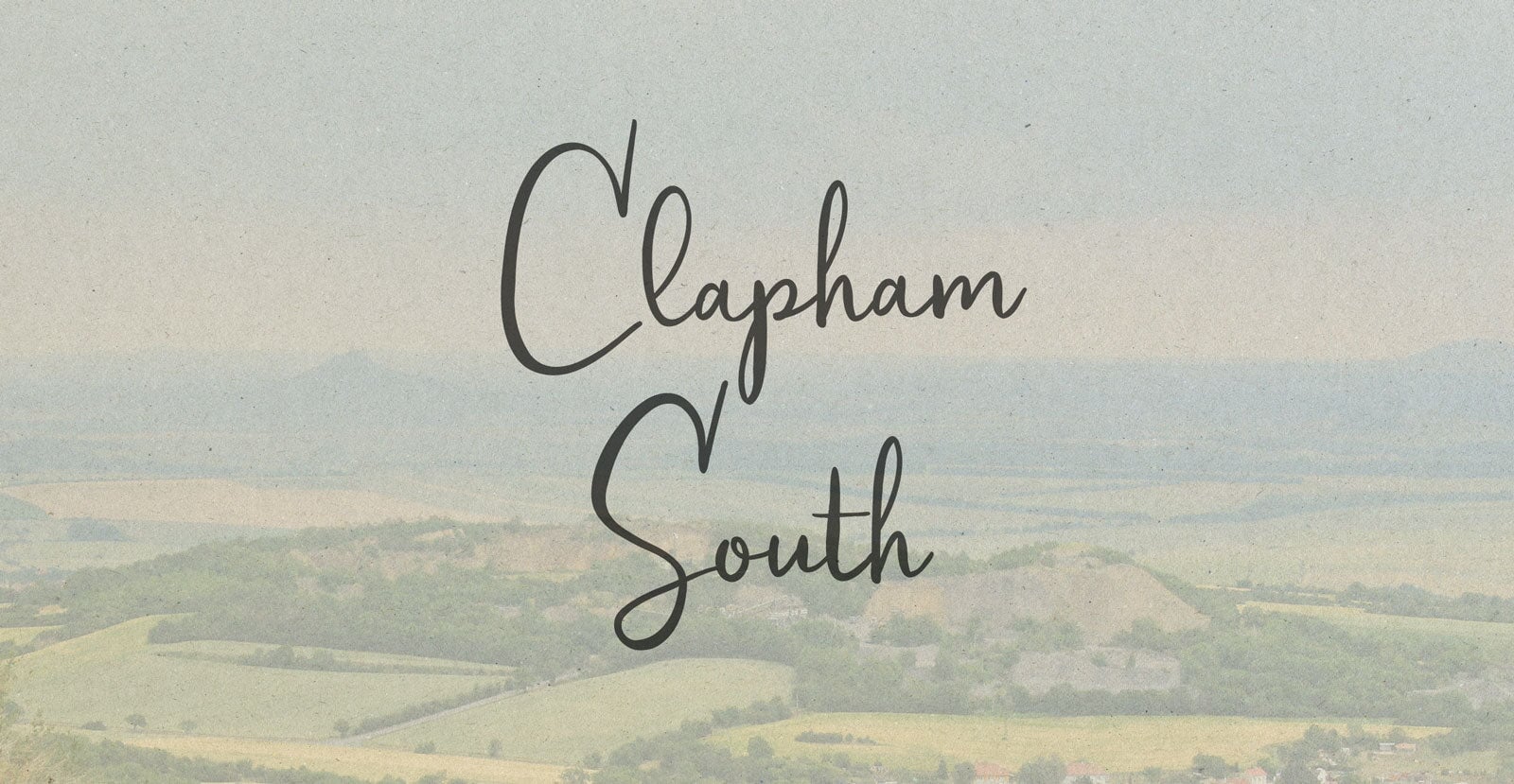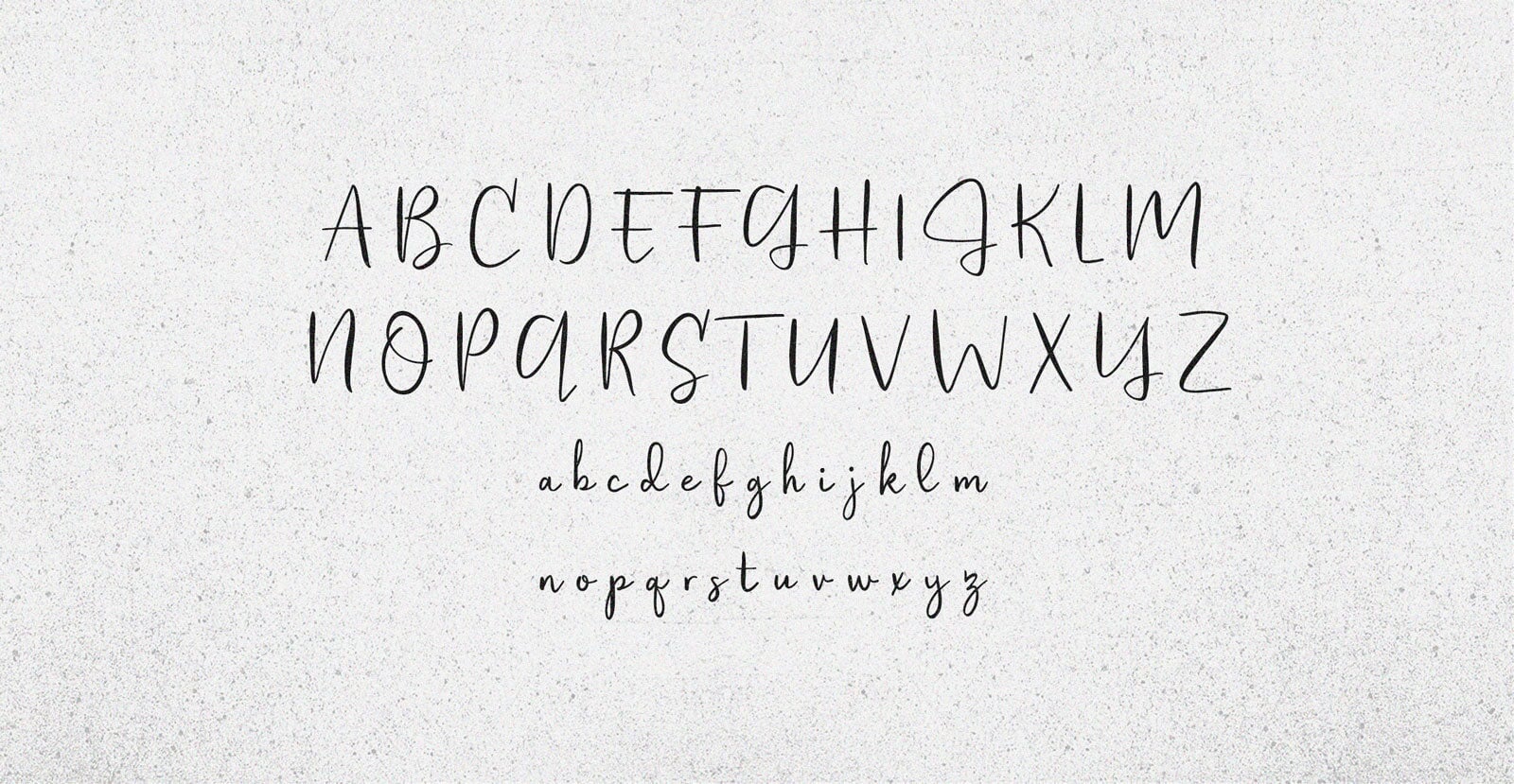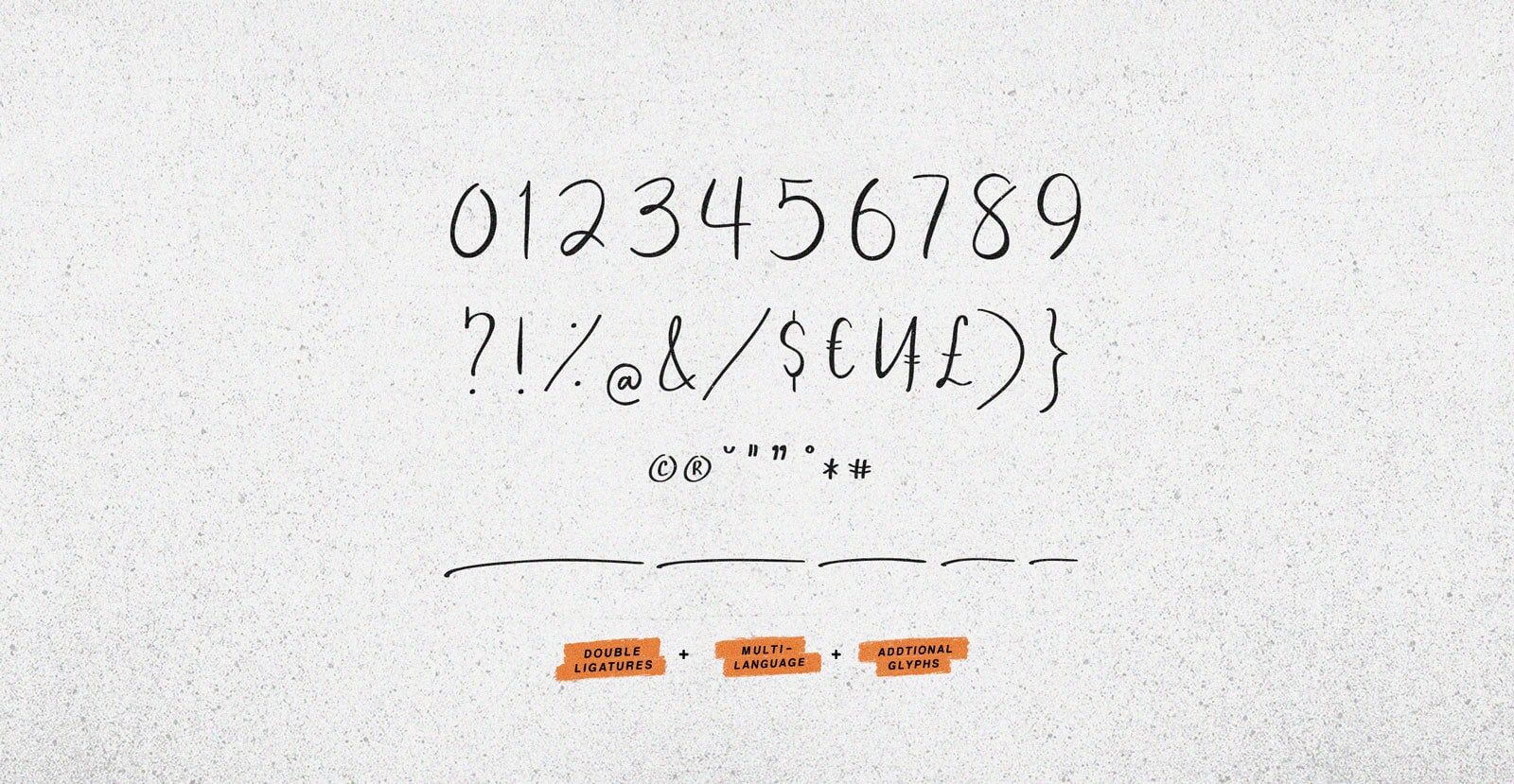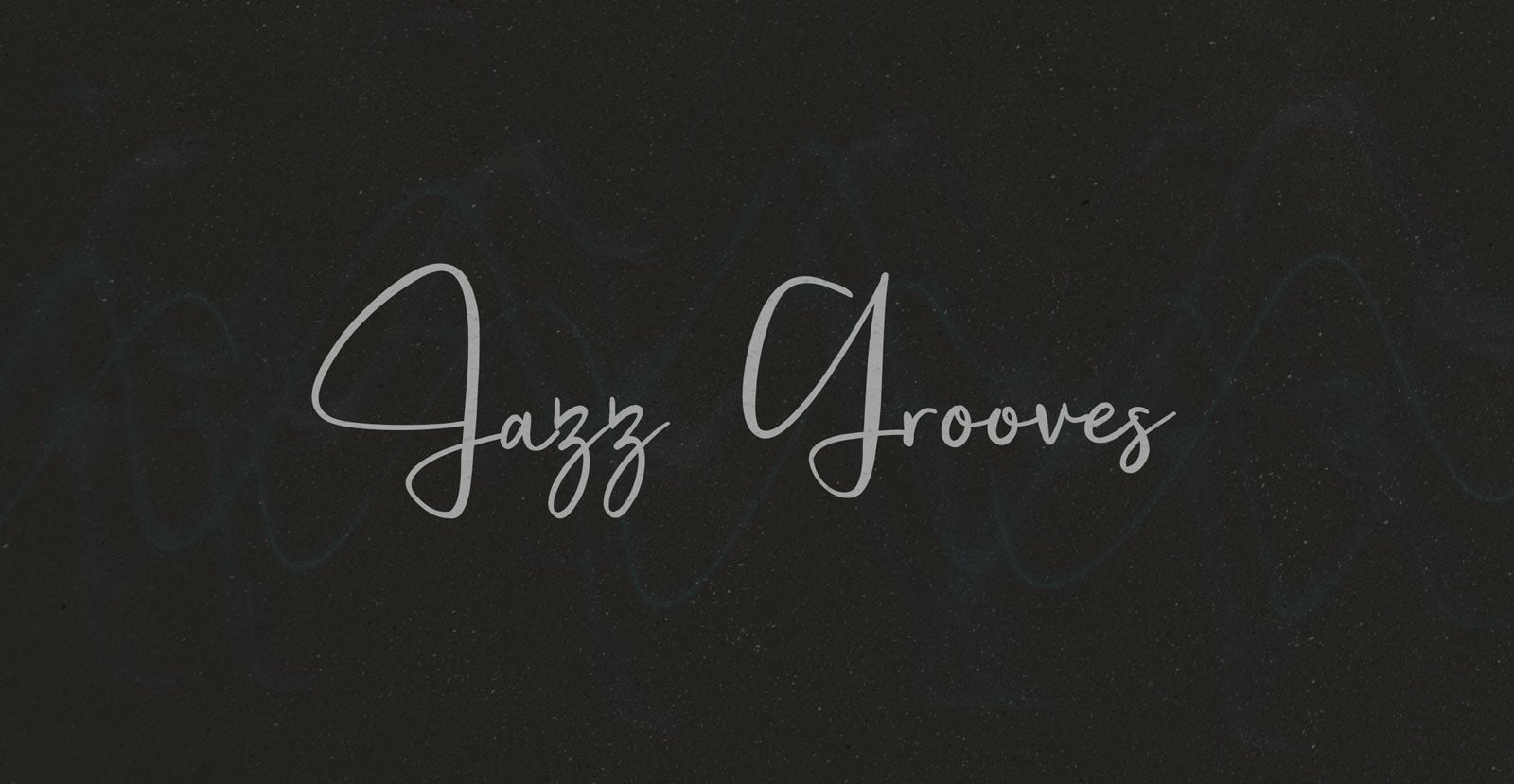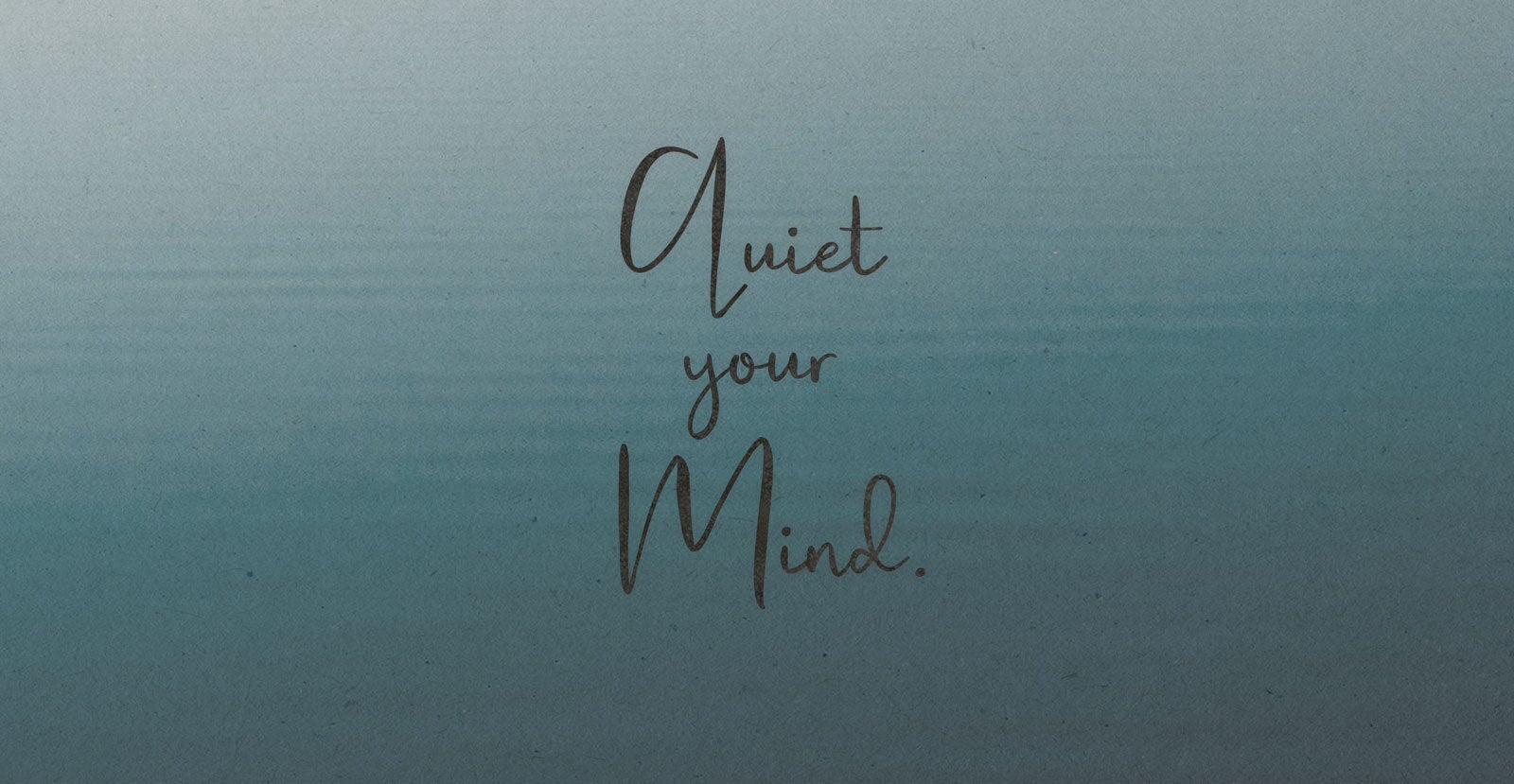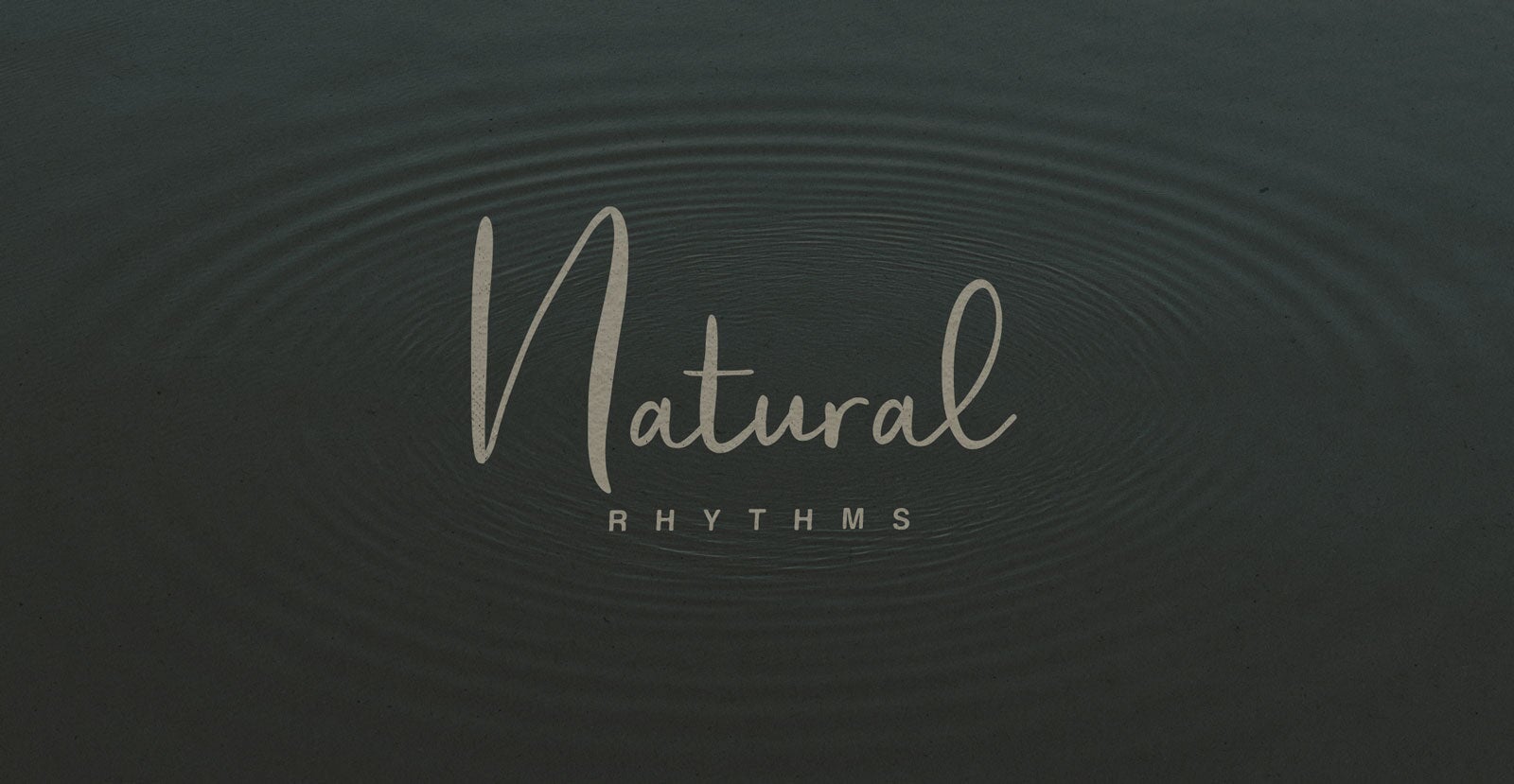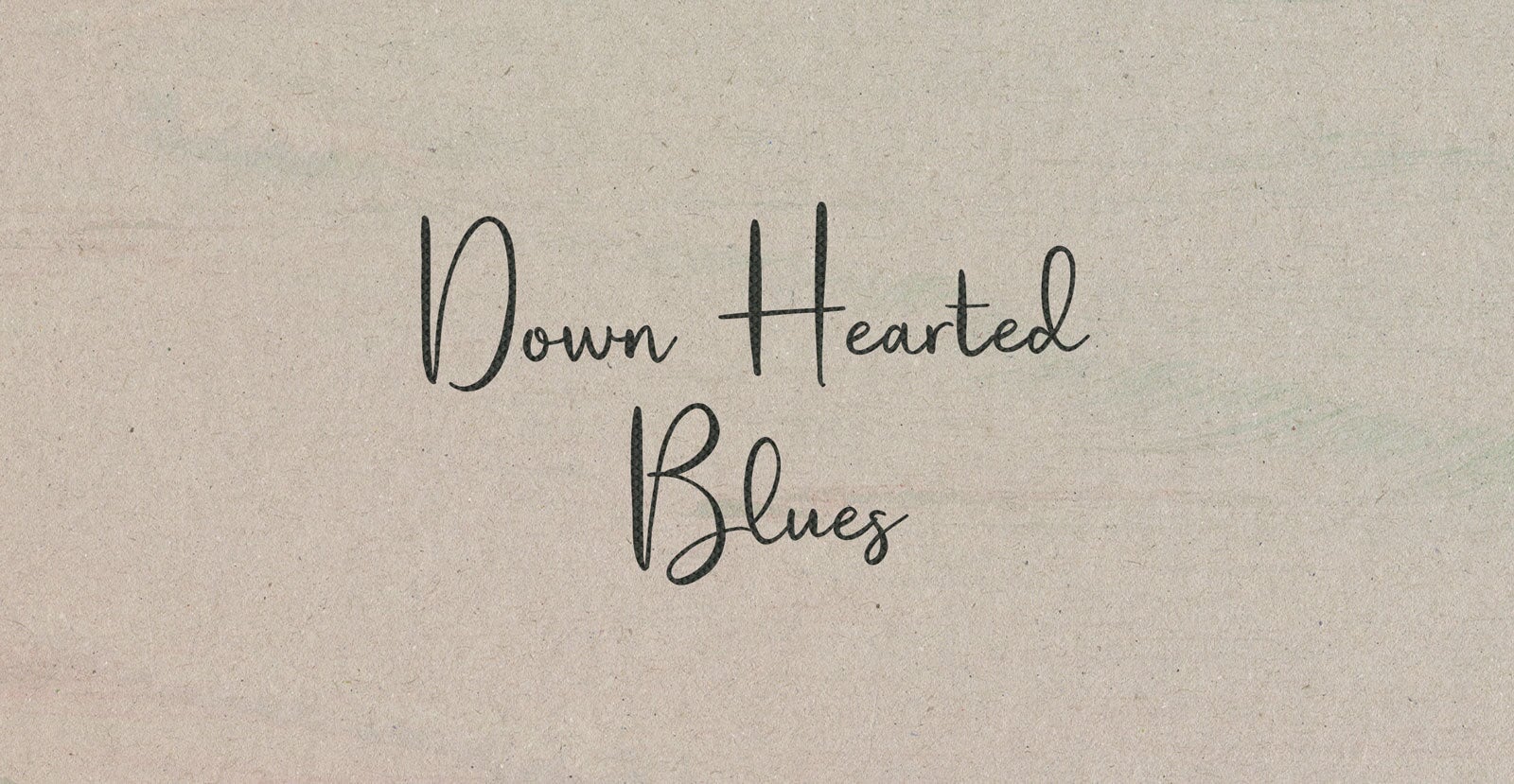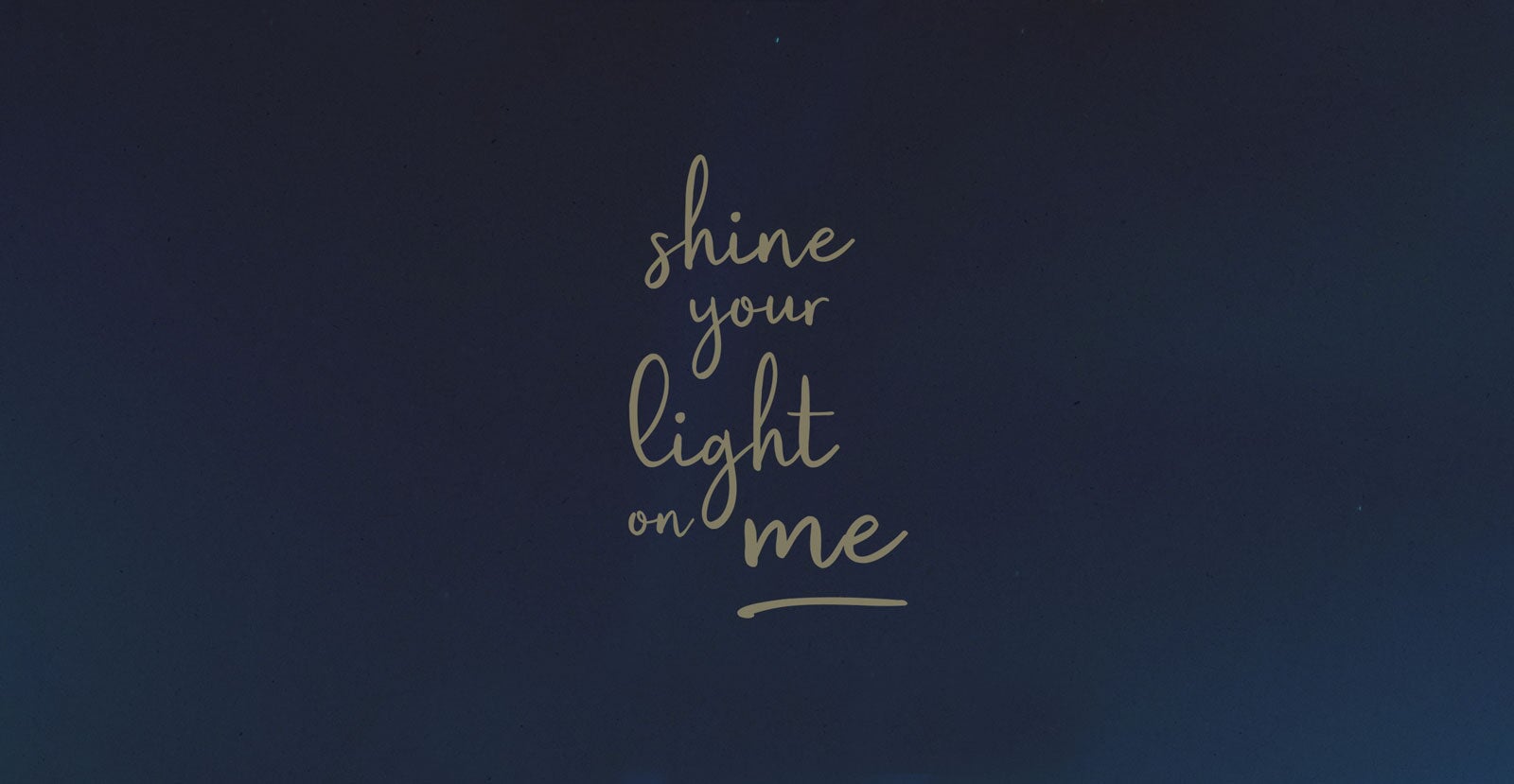
Clapham South
Handwritten Pen Script Font
Where the rush of the city softens into wide green commons and tree-lined streets. Morning coffee spots, evening pubs, the hum of the Underground just beneath it all. It’s London life with a little more breathing room, a neighbourhood that moves at its own pace.